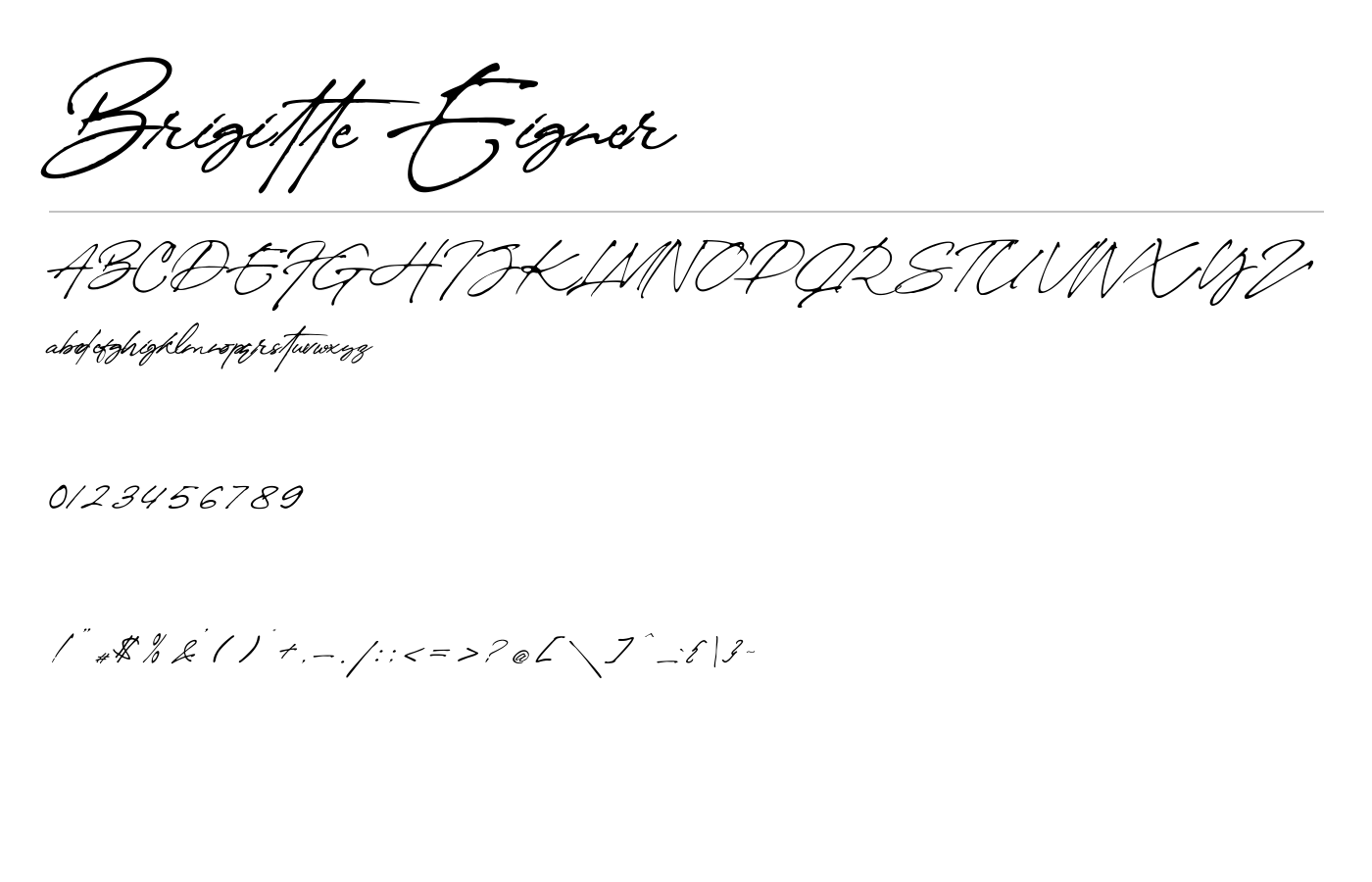
Brigitte Eigner is an elegant, flowing script font that captures the look of sophisticated handwritten calligraphy. Its fine, delicate strokes with varying thicknesses create a refined and personal touch, making it perfect for luxury branding, invitations, and stylish editorial designs. This font’s airy, cursive style adds a graceful and intimate feel, ideal for projects that want to convey elegance and creativity.
Brigitte Eigner Font
About Brigitte Eigner Font
| Font family | Brigitte Eigner Font |
| Designer | Daddi Daryawan |